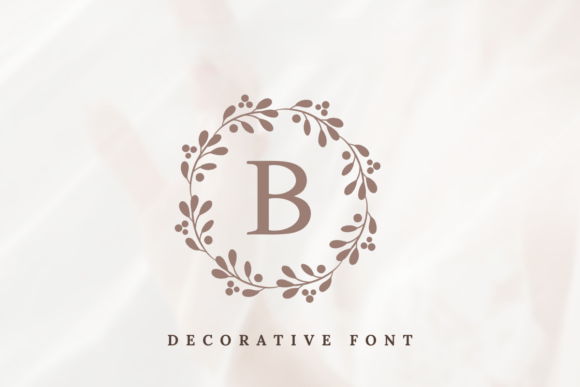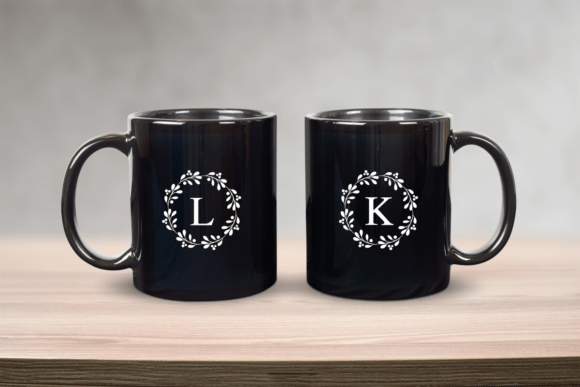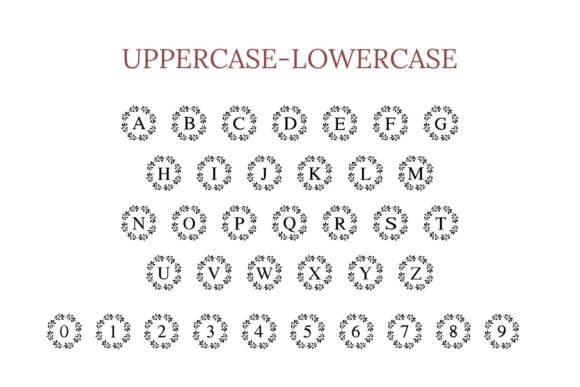
Blossom Monogram Font
Blossom Monogram is an elegant decorative font that blends timeless sophistication with delicate floral elements. Perfect for wedding stationery, personal branding, or upscale packaging, this font brings a graceful charm to any design. Its refined curves and ornamental details make it a go-to choice for classy, feminine creations.